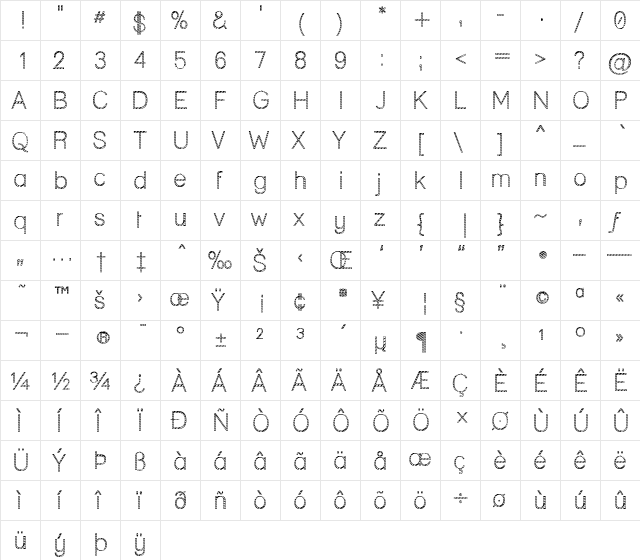
Lane - Cane Regular
| Designer | Graham Meade |
Design Context for Lane - Cane Typeface
Lane - Cane takes a measured approach to typography — its balanced proportions and neutral character make it a reliable workhorse for both digital and print work.